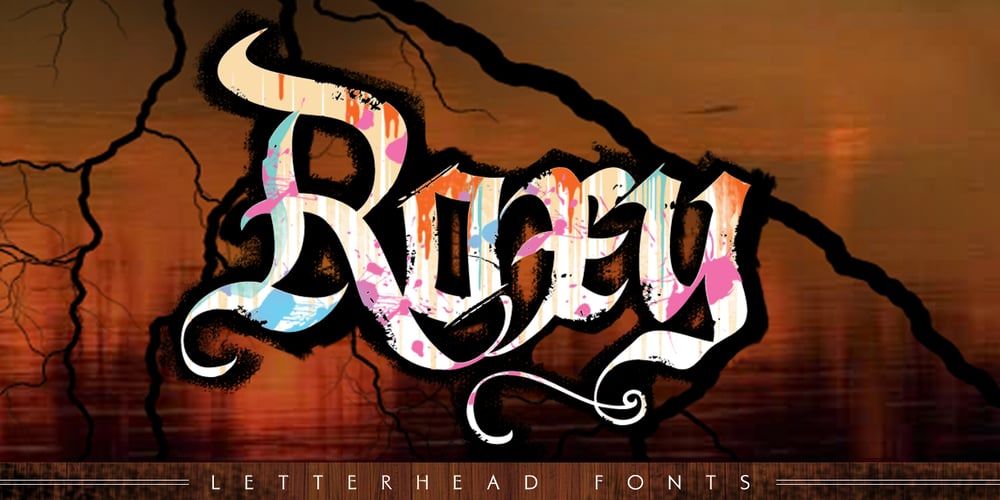
LHF Dark Horse
LHF Dark Horse font
LHF Dark Horse Font Family was designed by Denise Bayers and published by Letterhead Fonts. LHF Dark Horse contains 2 styles and family package options. LHF Dark Horse is not your normal Calligraphic typeface. Its unexpected striking curves give it an aggressive, yet graceful look. Set includes 2 fonts: Dark Horse 1 (Regular) and Dark Horse 2 (Decorative uppercase with flourishes). Also includes 19 bonus alternates and ligatures.